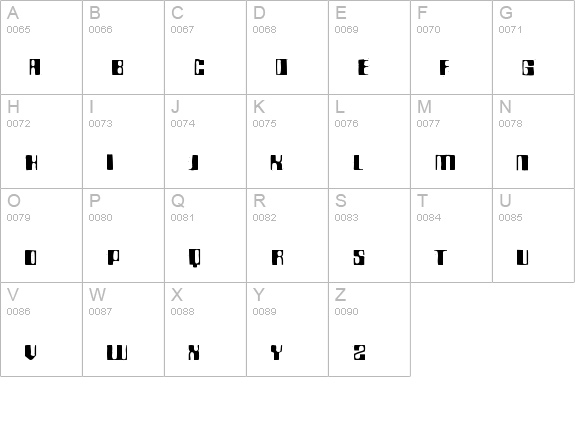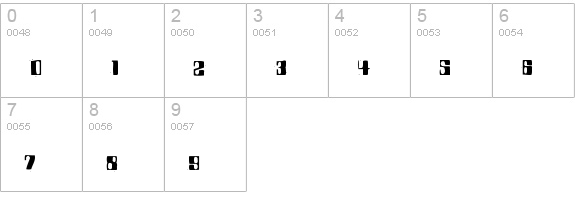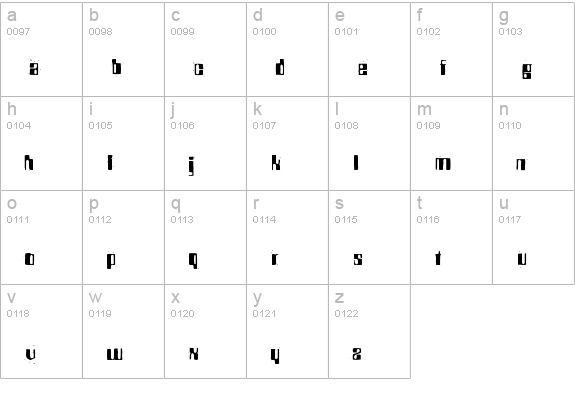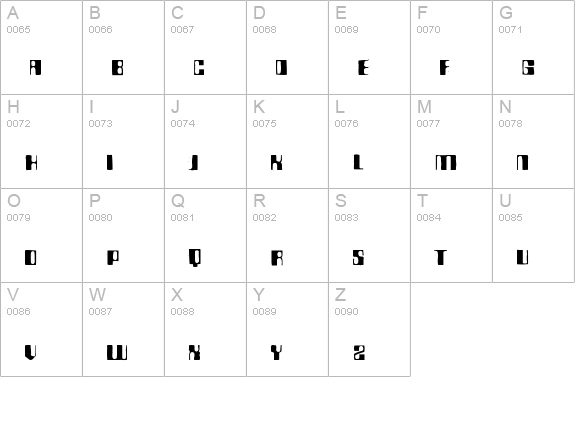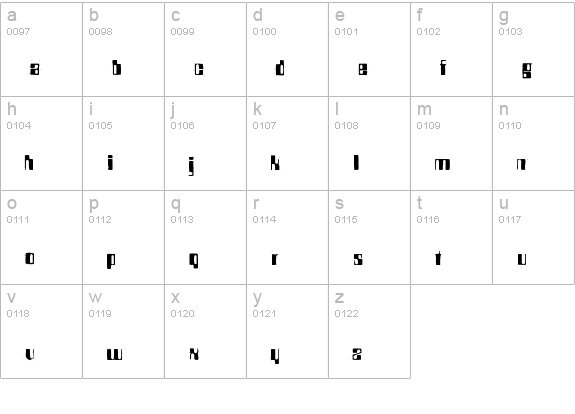
BDRocket70 Font Details
BDRocket70 font is a modern and stylish typeface that exudes a sense of energy and dynamism. Its bold and futuristic design makes it perfect for a wide range of projects, from branding and advertising to social media graphics and website headers. This versatile font features clean lines and sharp edges, giving it a sleek and contemporary look that is sure to make a statement. What sets BDRocket70 font apart is not only its visually striking appearance but also the fact that it is available for free download at FontsMarket.com. This means that you can easily access this high-quality font without any cost, making it a valuable resource for designers and creatives looking to elevate their projects without breaking the bank. Whether you're working on a personal passion project or a professional assignment, BDRocket70 font is a fantastic choice that combines style, accessibility, and affordability all in one package. Download it today and see how it can take your designs to new heights.